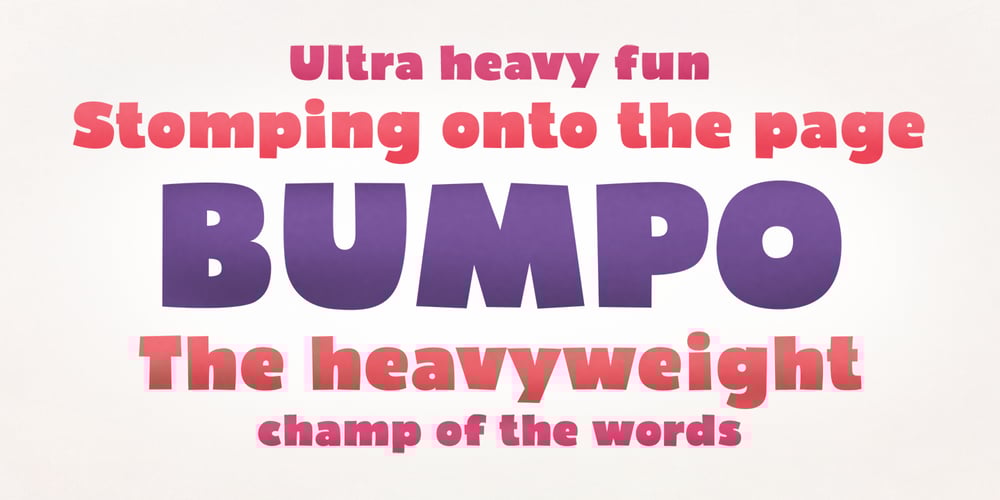
Bumpo Font Family was designed by Deepak Dogra and published by Graphite. Bumpo contains 3 styles and family package options. Bumpo is a chunky and a fun display typeface. With an extra heavy but friendly personality, Bumpo works well for posters, food packaging, children’s products and books, or any communications which needs to be friendly, fun, casual or loud. There is also a version of Bumpo with softer edges – Bumpo Soft